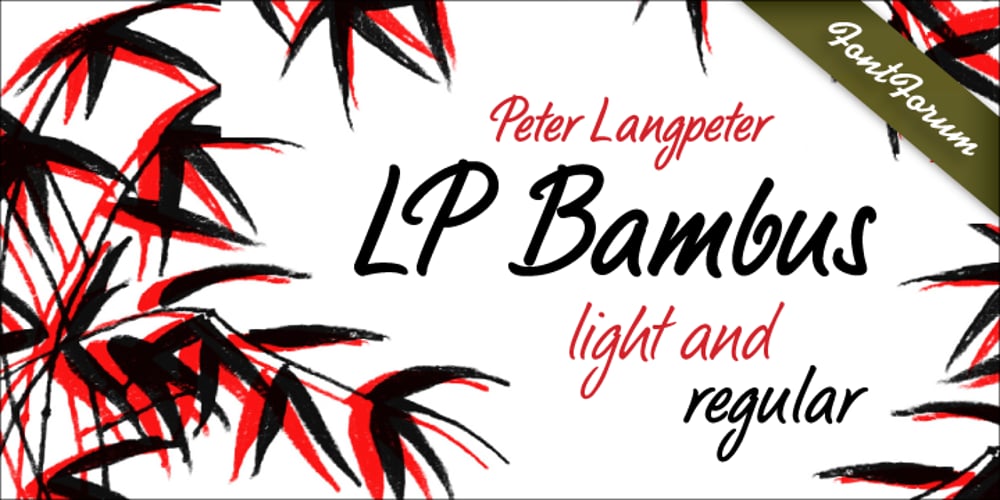
Bambus
Bambus font
Bambus Font Family was designed by Peter Langpeter and published by URW Type Foundry. Bambus contains 2 styles and family package options. LP Bambus is another new handwriting script written with bamboo from German designer Peter Langpeter (lp-design.de). LP has been running his own design studio since 1995, working as a typeface and logo designer, as a calligrapher, cartographer and illustrator. During this time LP created a large number of excellent new typeface designs. Now, we are extremely happy that LP has chosen to let URW digitally produce and market his designs.